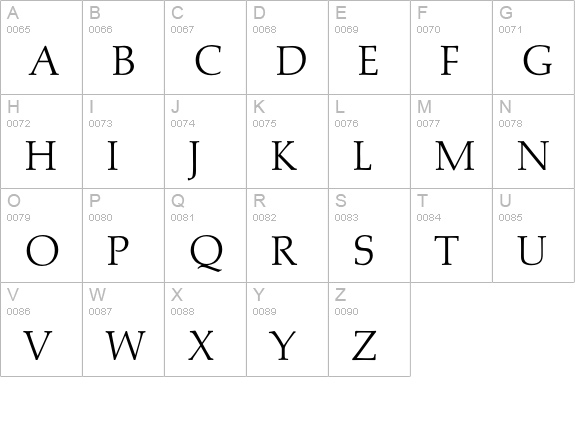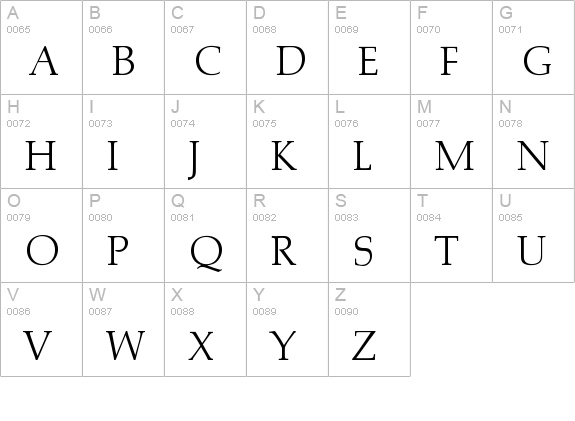
Marathon-Light is a refined, elegant variant in the Marathon typeface family \xE2\x80\x94 well suited to elegant body text, refined sub-headings, and luxury branding.
Marathon-Light font is a sleek and elegant typeface that effortlessly combines modernity with a touch of classic charm. Designed with clarity and legibility in mind, this font is perfect for a wide range of design projects including branding, advertising, packaging, and more. The clean lines and delicate curves of Marathon-Light create a sense of sophistication and professionalism, making it an excellent choice for both print and digital media. Its versatility allows it to be used in various sizes, from large headlines to small body text, without compromising its readability. What sets Marathon-Light font apart is its availability as a free download at FontsMarket.com. Yes, you read that right! This exceptional font can be freely accessed and downloaded, making it accessible to designers and enthusiasts alike. Now, you can elevate your designs with a high-quality typeface without breaking the bank. With its extensive character set, Marathon-Light offers support for multiple languages, making it suitable for global projects. Whether you're designing for a local audience or an international clientele, this font has got you covered. The Marathon-Light font is not only visually appealing but also easy to work with. Its well-defined letterforms and consistent spacing ensure a smooth and effortless design process. Say goodbye to frustrating alignment issues and hello to seamless typography. So why wait? Discover the beauty and versatility of Marathon-Light font today. Visit FontsMarket.com and experience the freedom of creativity with this exceptional typeface. Download it now and unlock endless design possibilities.